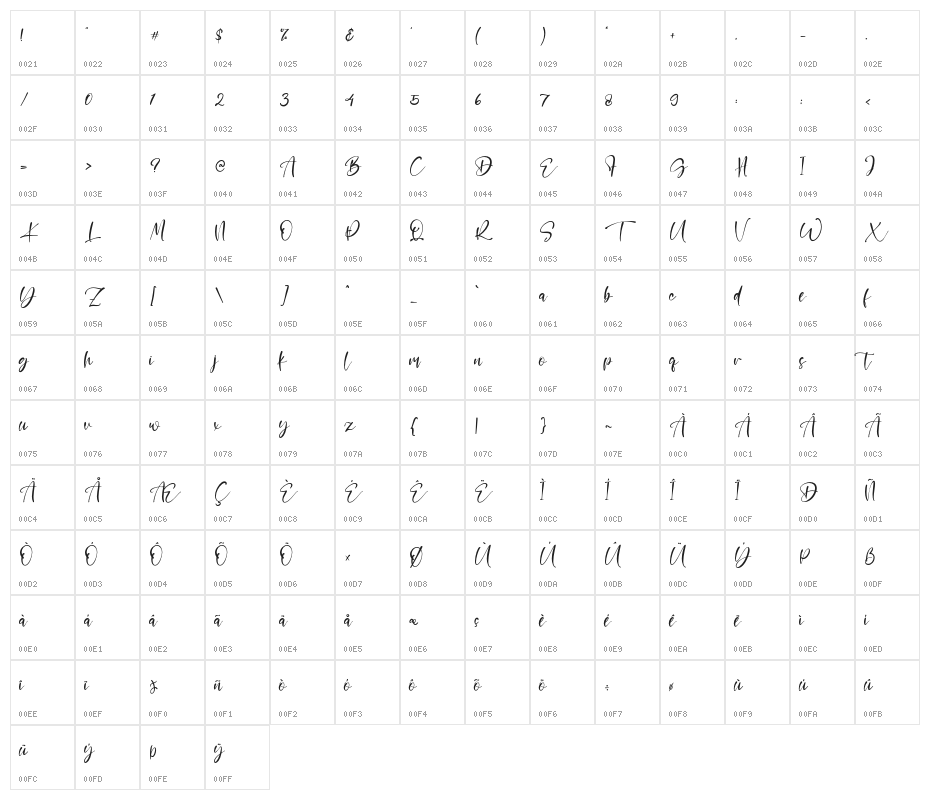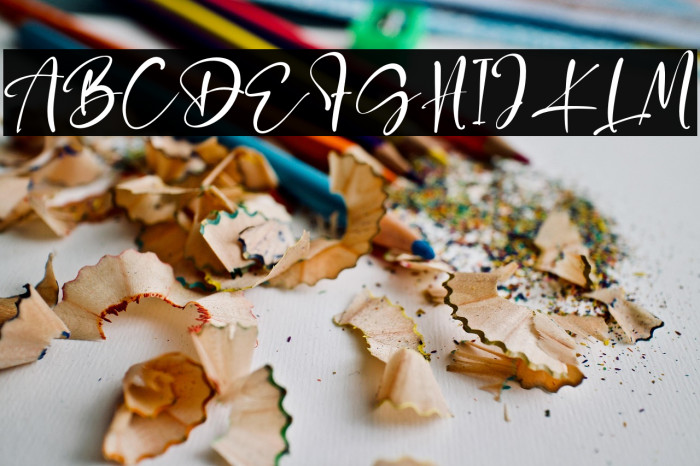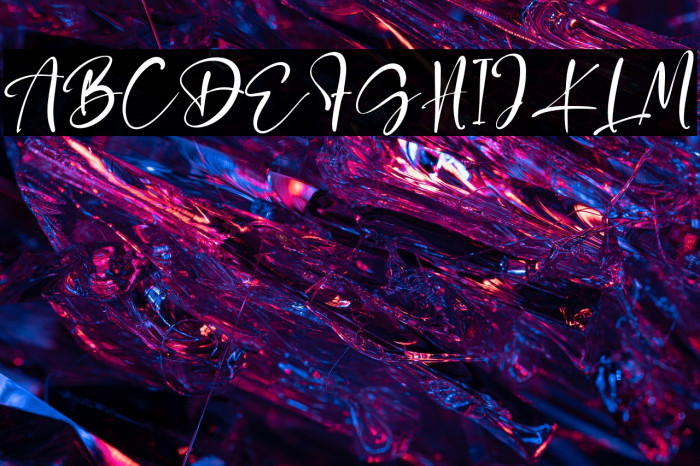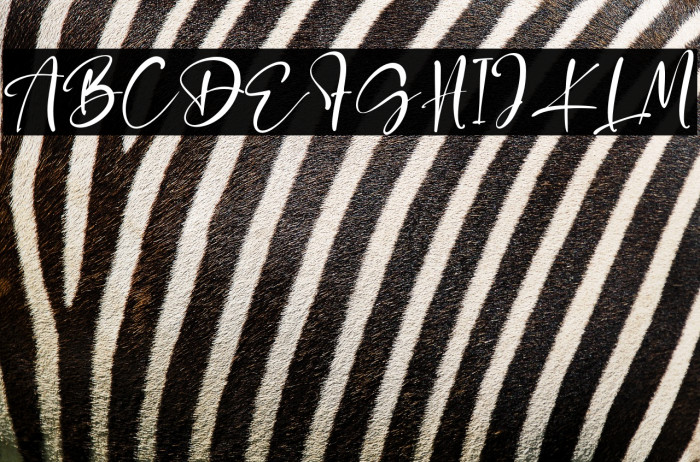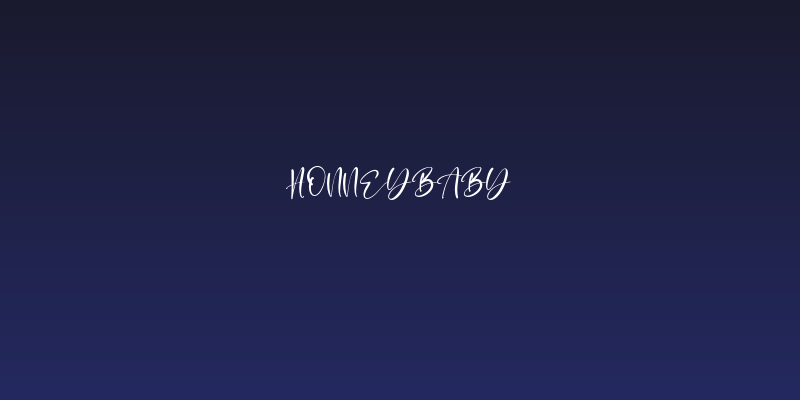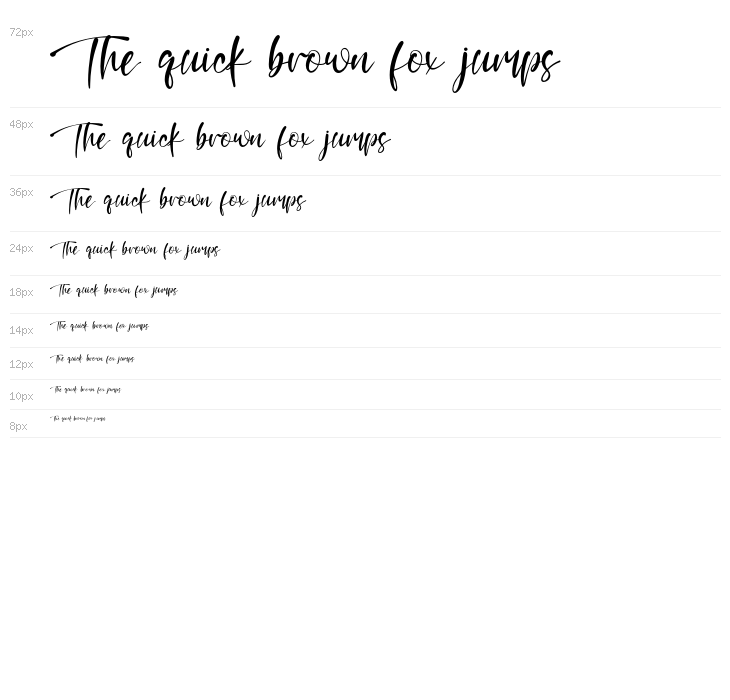
HonneyBaby Font
HonneyBaby Description
This font exudes a playful and elegant handwritten style, characterized by its fluid and cursive strokes. The letters are connected in a smooth, flowing manner, giving it a personal and artistic touch. The uppercase letters are bold and expressive, while the lowercase letters maintain a consistent rhythm and balance. The numbers and special characters are crafted with the same attention to detail, ensuring a cohesive look throughout. This font is perfect for adding a touch of sophistication and charm to any design project.
| Proposed Projects | Ideal for wedding invitations, greeting cards, branding, and social media graphics. |